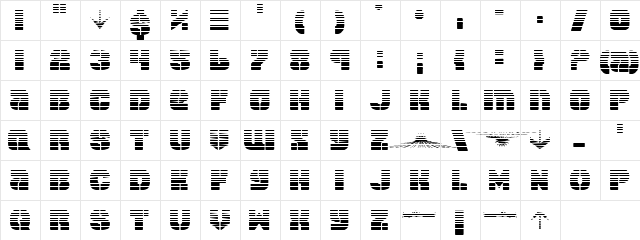
Space Cruiser Gradient Gradient
Design Context for Space Cruiser Gradient Typeface
Space Cruiser Gradient is a composed and adaptable typeface that performs quietly and consistently across a wide range of design contexts.